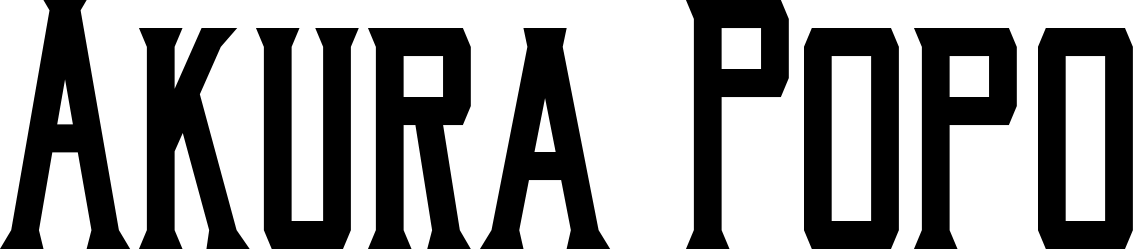
Akura Popo Font
If a retro font is on your list, Akura Popo may spark your interest. The letters are tall and semi-bold in this option and you can have it in 2 distinct styles. Bear in mind that lowercase letters are not included.
Akura Popo is a vintage and classic condensed serif font / typeface with bold, strong and tough looking style. Suits best for logo, headline, letterhead, etc.